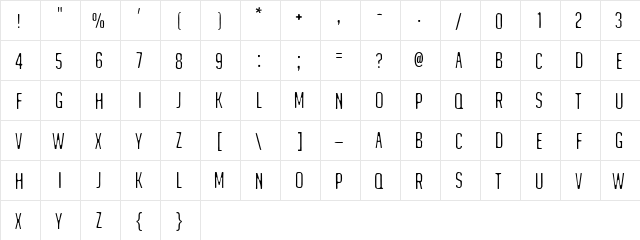
Matejino Regular
Design Context for Matejino Typeface
Matejino offers clean, dependable letterforms without strong stylistic allegiance, making it a practical choice for designers who need flexibility.